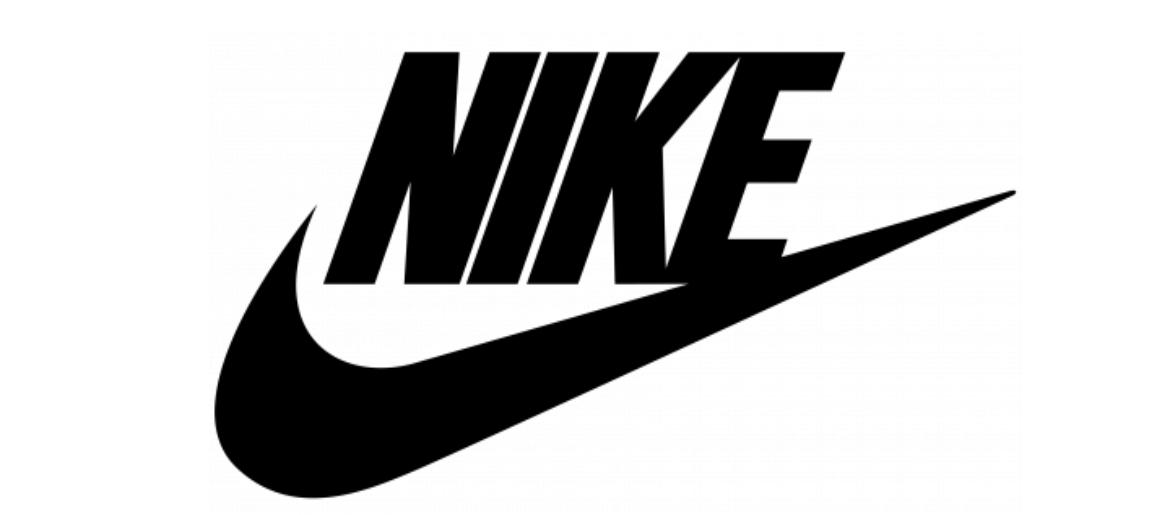
NIKE Font
Nike Font has always fascinated because of how powerful and motivating it feels. Whenever you see the swoosh, it’s clear how much the Nike logo font contributes to the brand’s identity of energy and performance. The typeface is just as iconic as the logo itself—simple yet unforgettable. The Nike logo font is based on Futura Bold Condensed, a strong geometric sans-serif typeface. This choice reflects movement, strength, and modernity, working seamlessly across shoes, apparel, ads, and digital platforms, always carrying the same bold spirit as the brand.
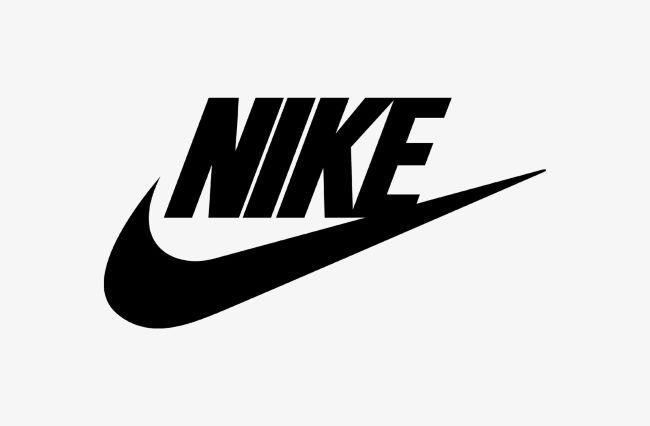
Compared to other sportswear brands, Nike Font stands out because of its timeless clarity and power. That’s why it has become one of the most recognizable fonts in the world. Nike Font shows how the right logo font can inspire motivation and instantly connect people to a global brand.